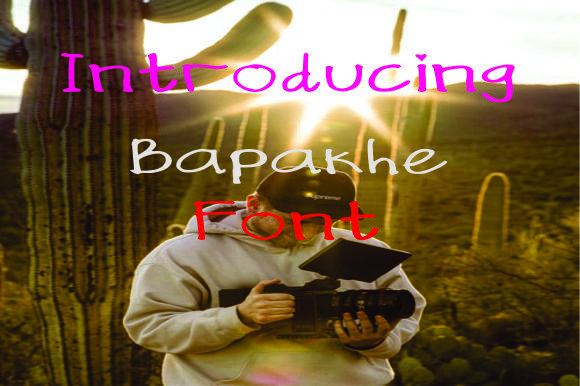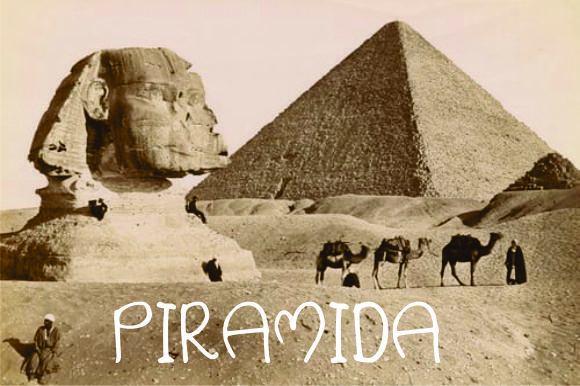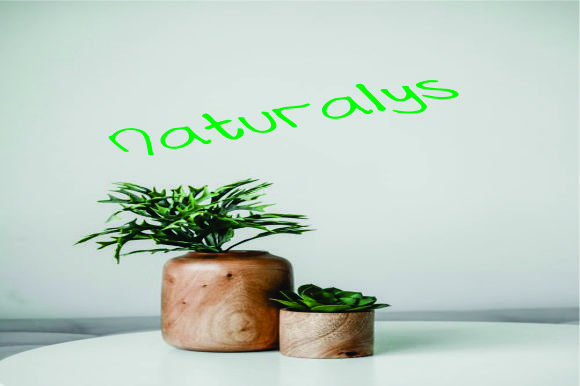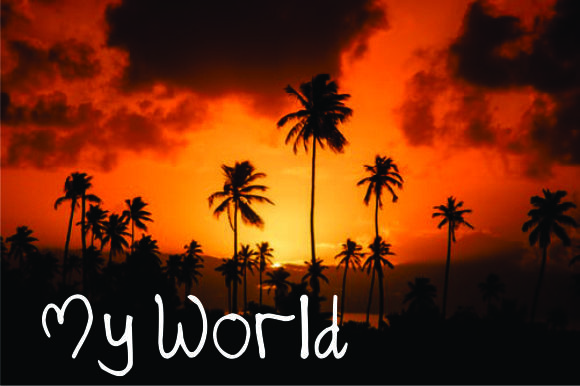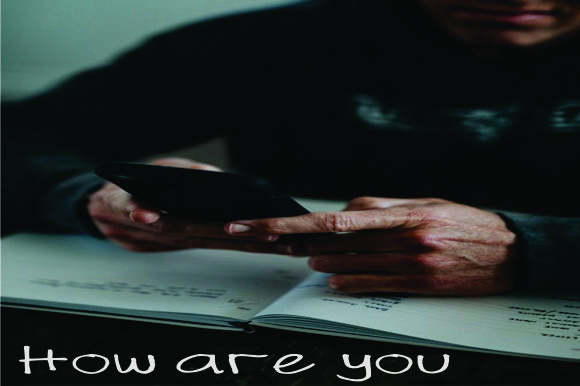
Bapakhe Font
About Bapakhe Font
Bapakhe is a cute and simple sans serif font that has a unique style. It is very suitable for logos, web design. magazines, album covers, and much more.
Give your next project a stylish look with this beautiful font.